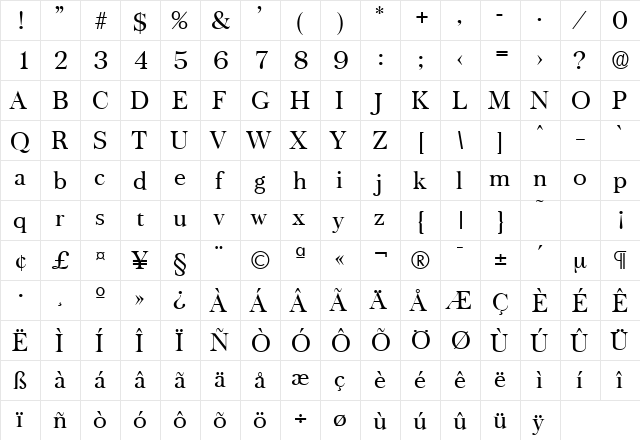
Baskerville-Serial Regular
Design Context for Baskerville-Serial Typeface
Baskerville-Serial is a composed and adaptable typeface that performs quietly and consistently across a wide range of design contexts.